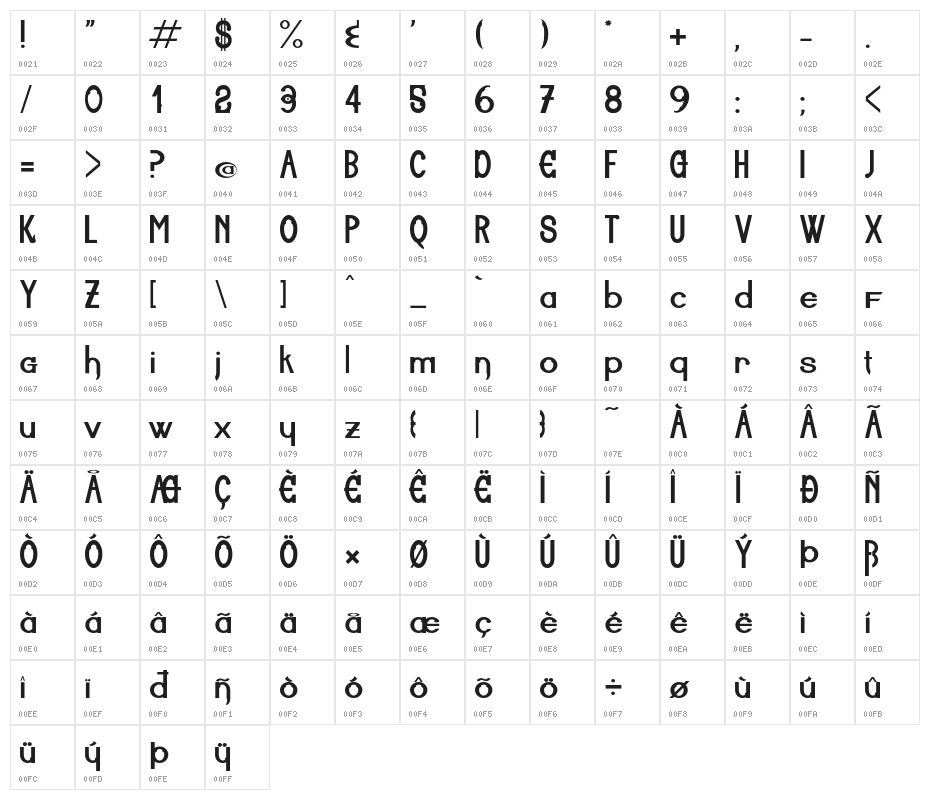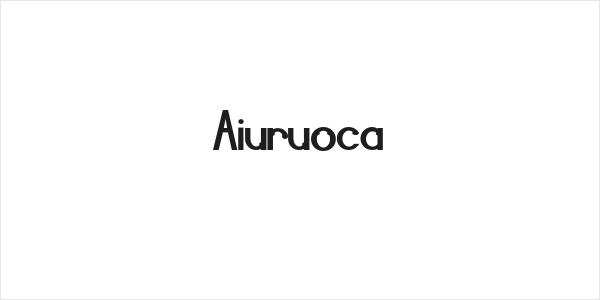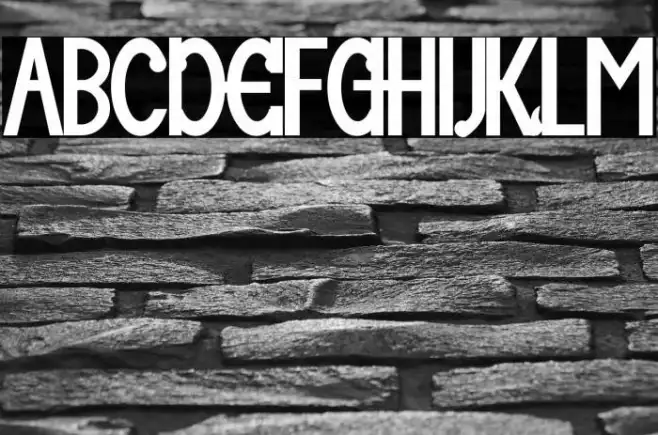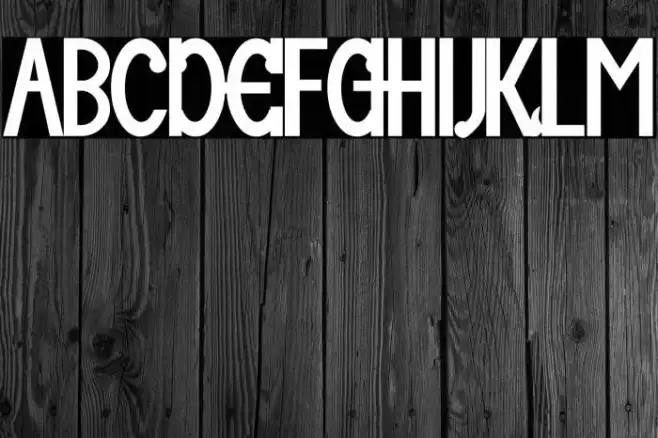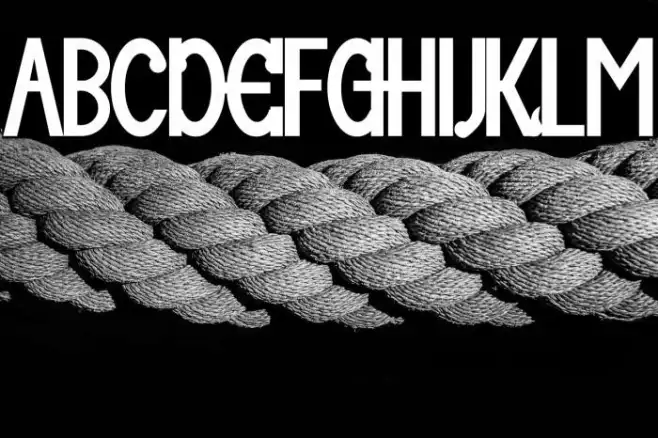
Aiuruoca Font
Aiuruoca Description
This font features a bold and striking design with a modern twist. The uppercase letters are tall and narrow, with unique geometric cuts and angles that give them a futuristic appearance. The lowercase letters maintain a similar style, with a consistent height and width that complements the uppercase set. The numbers are bold and distinct, ensuring readability while maintaining the overall aesthetic. Special characters are creatively designed, adding to the font's unique character. This font's high contrast and bold weight make it ideal for attention-grabbing designs.